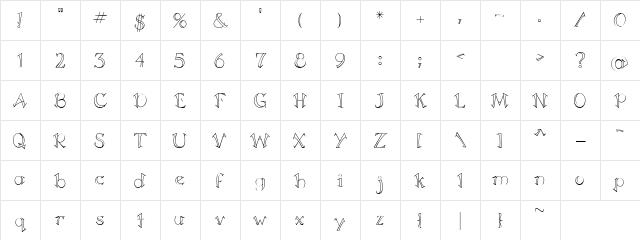
LD Mystify Regular Free Font
LD Mystify Regular
Design Context for LD Mystify
LD Mystify is a composed and adaptable typeface that performs quietly and consistently across a wide range of design contexts.